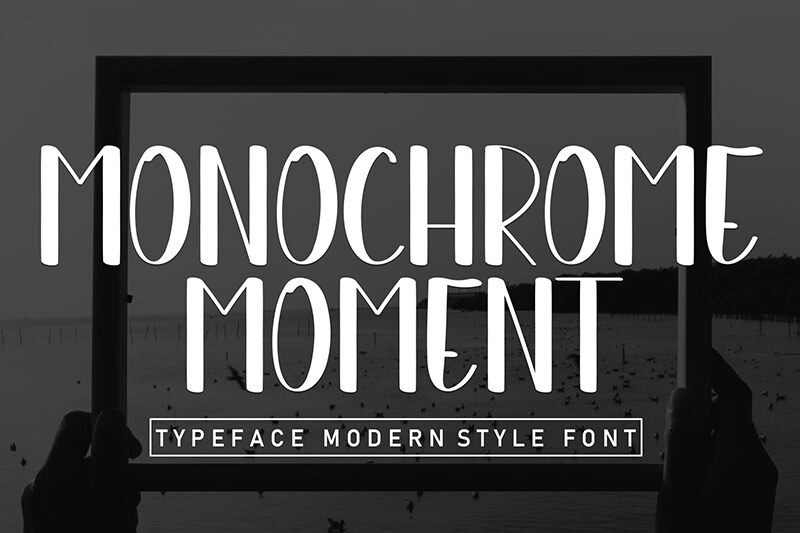
Monochrome Moment
Monochrome Moment font is a condensed elegant font influenced by vintage and art deco stylistics. This exquisite typeface by Andi Moz showcases handwriting-like qualities with its own originality and uniqueness. The highly sophisticated Monochrome Moment encompasses style, fashion, and luxury inside each of its characters.